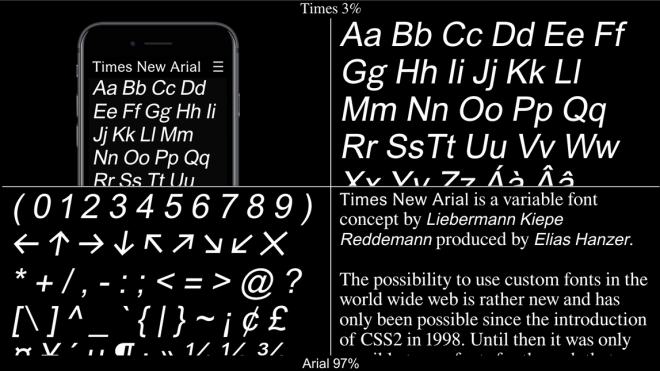
Times New Arial mutates familiar fonts into something wholly new
A project out of design studio Libermann Kiepe Reddemann (LKR) in Hamburg, Germany, in conjunction with designer Elias Hanzer, Times New Arial is a …